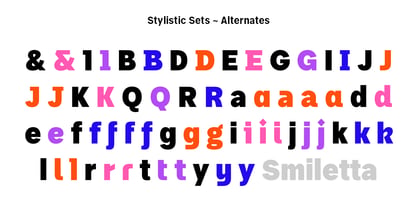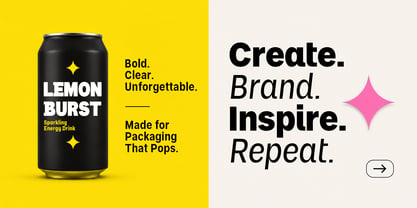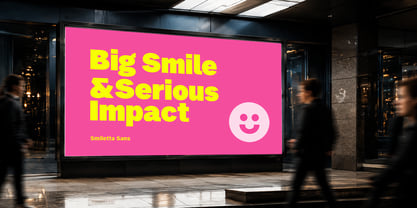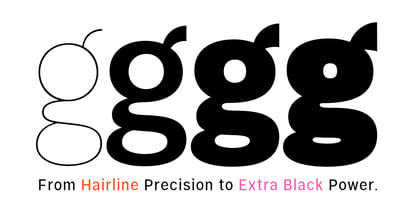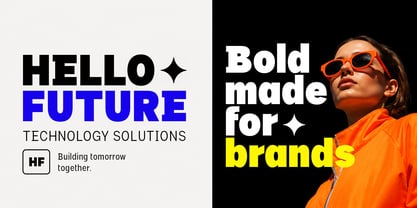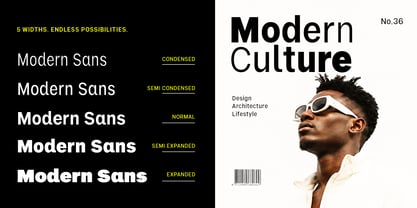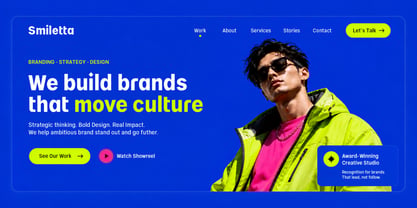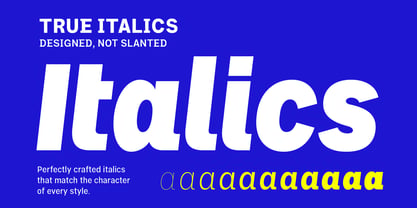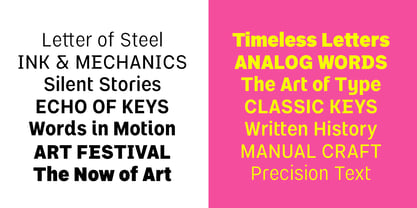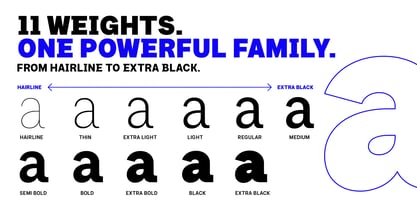
Smiletta
by Akbartype
The Smiletta Font Family was designed by Azzura . and published by Akbartype. Smiletta contains 396 styles.
Smiletta is a branding-focused sans serif built for designers who need presence, flexibility, and unmistakable character in a single type system. Defined by towering x-heights, dense proportions, generous curves, and confident silhouettes, Smiletta delivers immediate visual impact while maintaining remarkable clarity across headlines, identities, packaging, and campaign design. Rather than following the cold neutrality of corporate grotesks or the predictable formulas of geometric sans serifs, Smiletta embraces a more expressive direction. Its bold rhythm, compact structure, and friendly forms create a distinctive voice that feels approachable without losing authority. The result is a typeface capable of shifting effortlessly between contemporary branding, premium packaging, editorial design, digital products, and large-scale advertising. The family includes 11 weights from Hairline to Extra Black, 5 widths, true italics, a dedicated Soft Collection, and a Variable Font with Weight and Width axes. Four stylistic sets (SS01–SS04) introduce alternate glyph personalities, allowing designers to fine-tune tone and expression without changing typefaces. In addition, the family is also available as separate subfamilies to simplify workflow and make it easier to choose specific variations. Each style group is provided individually, including Smiletta, Smiletta B, Smiletta C, Smiletta D and extra Smiletta Outline, giving designers greater control and flexibility when selecting the right personality and expression for their projects. Extensive language support further expands its reach, making Smiletta equally comfortable in local identities and global brand systems. From elegant minimalism to maximum visual impact, Smiletta is not simply a font family—it is a complete branding framework designed to help brands become more memorable, more expressive, and impossible to ignore.